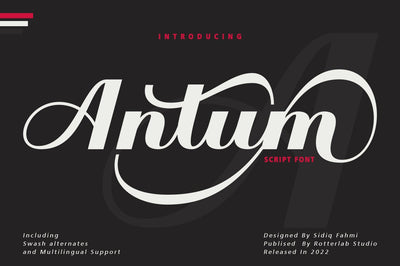
Antum - Vintage Bold Script
Antum is a vintage bold script font that is heavily inspired by vintage and retro modern styles
All characters have imperfect shapes which give a natural look in the design. These easily work together and are perfect for creating traditional style logos, labels, package designs, lettering for t-shirts and more.
Uppercase + Lowercase
Number + Punctuation
OpenType Features
Multilingual support It also includes a clean version without textures. OpenType features (ligatures and alternatives) help make your writing more interesting. There is also an alternative swash
This font has a vintage feel with a stylish stamp on each letter. great for Logotype, Branding Design, Vintage Logo Design, Digital Lettering Art, Retro, brush fonts, script fonts, bold scripts, Vintage fonts and any vintage design needs.